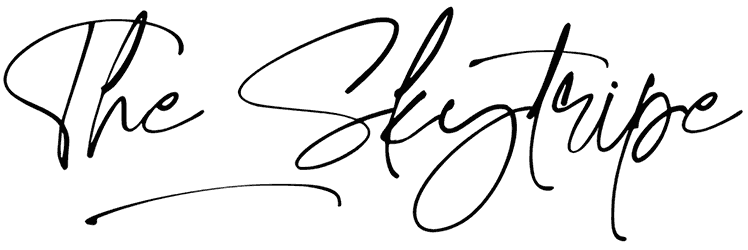
The Skytripe Font
This handwritten font, The Skytripe, with its contemporary lettering, could be used for the film’s title, as well as in advertisements, textbooks, packaging, clothing, and so on. You can use this font to breathe new life into otherwise dull images.